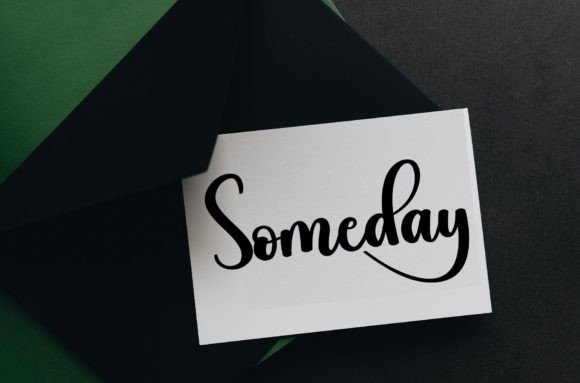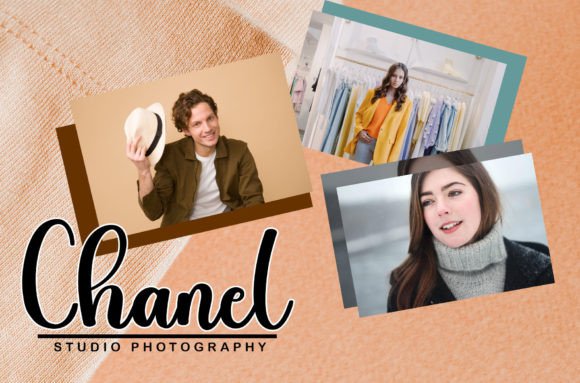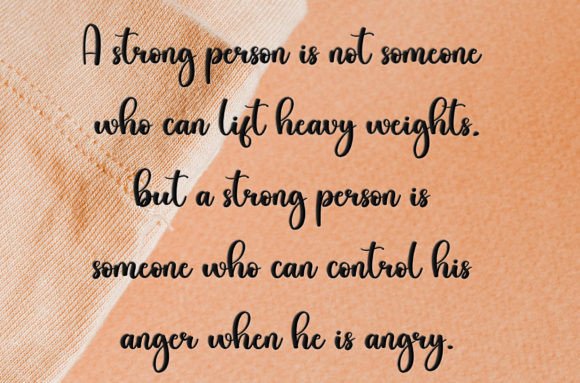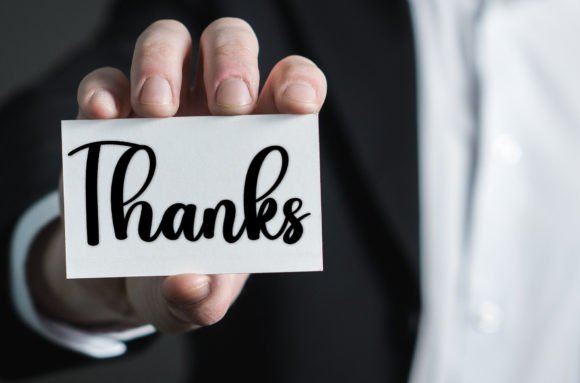
Introducing Actually Font: The Sweet and Versatile Handwritten Script
Are you looking for a font that can add a touch of romance and elegance to your next design project? Look no further than Actually Font, a bold and sweet handwritten script font that’s perfect for a wide range of applications. From greeting cards to headlines, Actually Font is guaranteed to bring a romantic flair to your designs.
What Makes Actually Font So Special?
Actually Font is a unique and versatile script font that’s designed to capture the essence of handwritten writing. Its bold and sweet strokes make it perfect for creating eye-catching headlines, while its elegant and flowing curves make it ideal for body text and captions. Whether you’re designing a romantic greeting card, a stylish poster, or a beautiful wedding invitation, Actually Font is the perfect choice.
Key Features of Actually Font
- Bold and Sweet Strokes: Actually Font features bold and sweet strokes that are perfect for creating eye-catching headlines and titles.
- Elegant and Flowing Curves: The font’s elegant and flowing curves make it ideal for body text and captions, adding a touch of sophistication and elegance to your designs.
- Versatile and Adaptable: Actually Font is a versatile script font that can be used for a wide range of applications, from greeting cards to headlines, posters, and more.
- Romantic Flair: The font’s romantic and whimsical feel makes it perfect for designs that require a touch of elegance and sophistication.
Use Cases for Actually Font
Actually Font is a versatile script font that can be used for a wide range of applications, including:
- Greeting Cards: Create beautiful and romantic greeting cards for special occasions like Valentine’s Day, weddings, and anniversaries.
- Headlines and Titles: Use Actually Font to create eye-catching headlines and titles for posters, flyers, and brochures.
- Wedding Invitations: Add a touch of elegance and sophistication to your wedding invitations with Actually Font.
- Posters and Flyers: Use Actually Font to create stylish and eye-catching posters and flyers for events, promotions, and more.
Actually Font is a beautiful and versatile script font that’s perfect for designers and crafters looking to add a touch of romance and elegance to their designs. With its bold and sweet strokes, elegant and flowing curves, and romantic flair, Actually Font is guaranteed to bring a touch of sophistication and whimsy to your next project. So why wait? Download Actually Font today and start creating beautiful designs that capture the essence of handwritten writing.